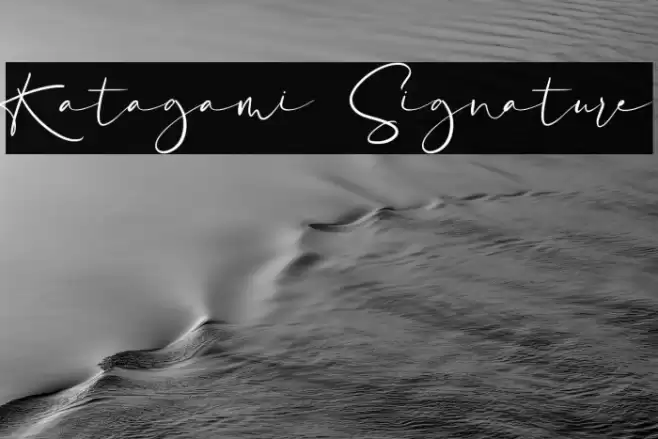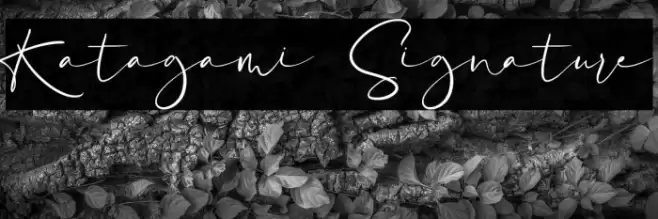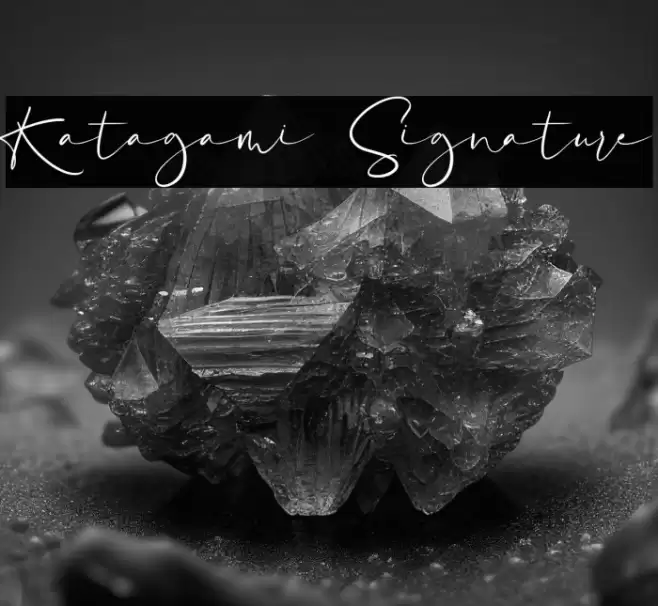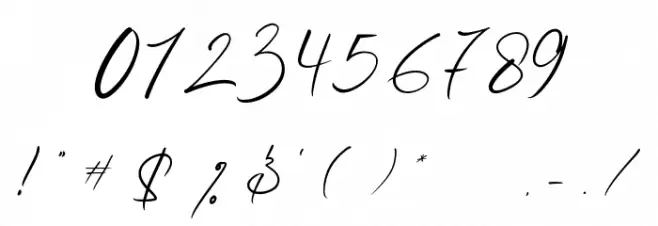
Katagami Signature Font
Katagami Signature Description
This font exudes a sense of elegance and fluidity, characterized by its cursive, handwritten style. The letters are interconnected with smooth, flowing strokes that give it a dynamic and lively appearance. The uppercase letters are bold and expressive, while the lowercase letters maintain a consistent flow, enhancing readability. The numbers are distinct yet harmonize well with the overall script style. Special characters are thoughtfully designed to match the aesthetic, making this font versatile for various applications. The overall impression is one of sophistication and artistic flair, suitable for projects that require a personal touch.
A cursive, handwritten font with elegant, flowing strokes and a sophisticated style from Regular fonts.
- Font: Katagami Signature
- Proposed Projects: Ideal for wedding invitations, personal branding, greeting cards, and artistic projects.
- Overall Style: Elegant, Artistic
- Use Case: Logos, Invitations, Personal Branding